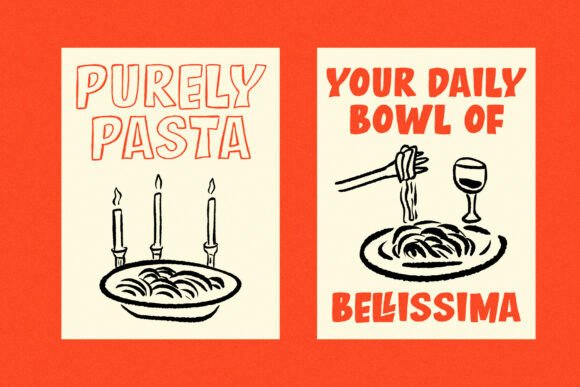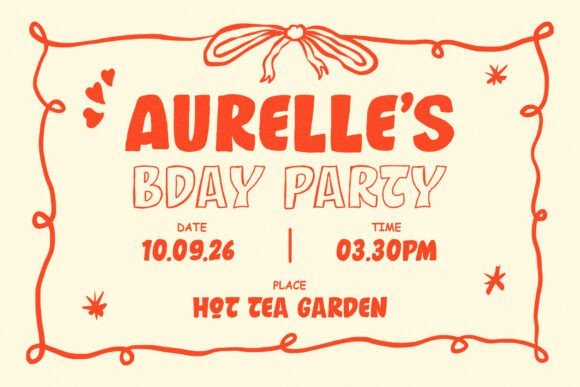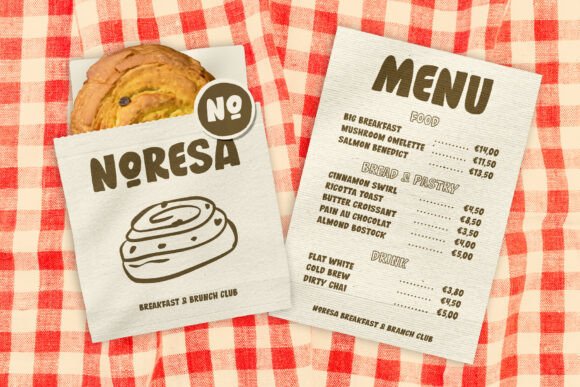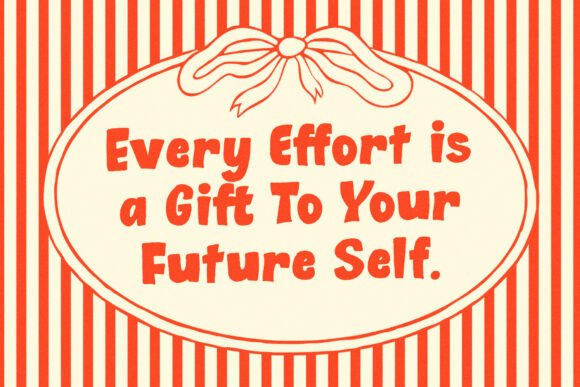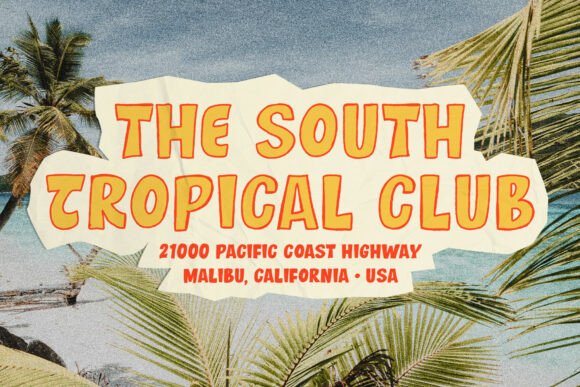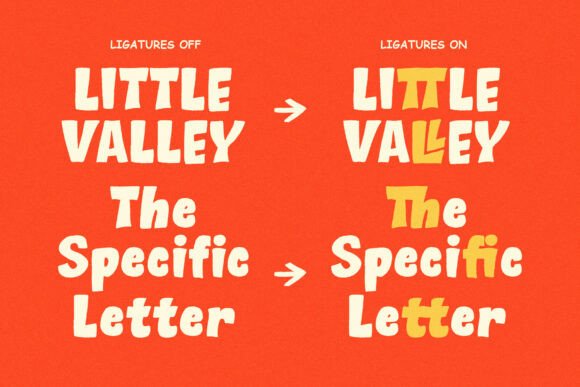
Introduction to Mapsy Boldsy Font
Have you ever been working on a creative project, and that perfect font just seems to be missing? You want something that feels authentic, something that adds a touch of personality to your design. Maybe you’ve been searching for hours, scrolling through endless options, but nothing seems to quite fit the bill. That’s where the Mapsy Boldsy Font comes in – a bold, hand-drawn font that’s full of character and charm.
With its organic shapes and lively character, the Mapsy Boldsy Font is perfect for adding a fun, handcrafted touch to your designs. Whether you’re working on a food branding project, creating a café menu, or designing packaging, this font is sure to stand out. And the best part? It’s available for free download, complete with a transparent background, making it a valuable resource for designers.
Key Features of Mapsy Boldsy Font
- Unique Bolding Style: Mapsy Boldsy Font offers a distinctive bolding style that adds a creative touch to any design project.
- High-Quality Design: This font is designed with high-quality in mind, making it perfect for any creative project that requires a premium look.
- Transparent Background: Mapsy Boldsy Font allows for a transparent background, giving designers the flexibility to customize their designs as needed.
- Perfect for Designers: Mapsy Boldsy Font is a versatile design resource that can be used for a variety of creative projects, from logos to brochures.
Honest Review: Mapsy Boldsy Font
I recently had the chance to work with the Mapsy Boldsy Font and I must say, it’s been a game-changer for my creative projects. The font is free to download, which is always a plus for me.
The Mapsy Boldsy Font has a unique, bold design that makes it perfect for headings and titles in my designs. The high-quality vector graphics make it look sleek and professional, even with a transparent background.
- Unique and bold design that stands out in any project
- High-quality vector graphics for crisp and clear results
- Only available in a limited number of font styles, which can be a drawback for some designers
- May not be suitable for projects that require a more subtle or elegant font style
- Some users may experience issues with font rendering on certain devices
- ⚠️ Not all characters are available in the font family, which can cause issues with text formatting
Overall, I’m thoroughly impressed with the Mapsy Boldsy Font. Its unique design and high-quality graphics make it an excellent choice for any creative project. While it may have some limitations, I believe it’s a valuable design resource that’s worth exploring.
Mapsy Boldsy Font is a high-quality design resource ideal for creative projects. It features a bold, modern design with a transparent background, making it perfect for backgrounds, titles, and headings.
To get the most out of Mapsy Boldsy Font, use it sparingly to create visual contrast and emphasis. Experiment with different font sizes and colors to achieve the desired effect.
Mapsy Boldsy Font is commonly used for:
- Designing logos and branding materials.
- Creating presentations and reports.
- Developing digital products and websites.